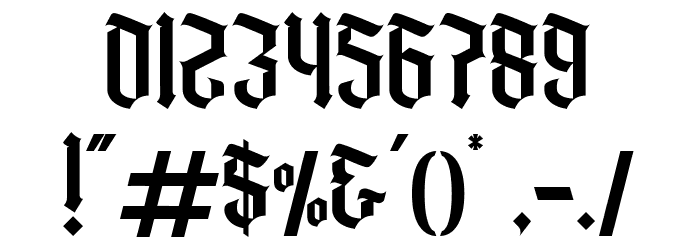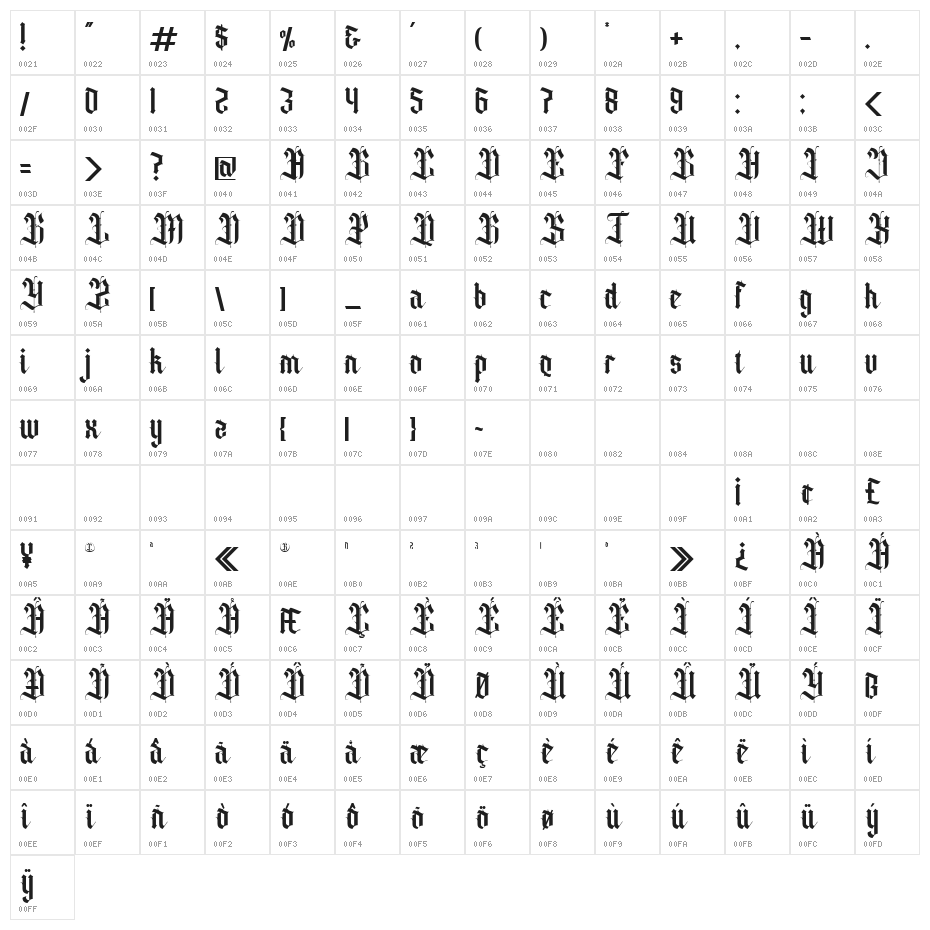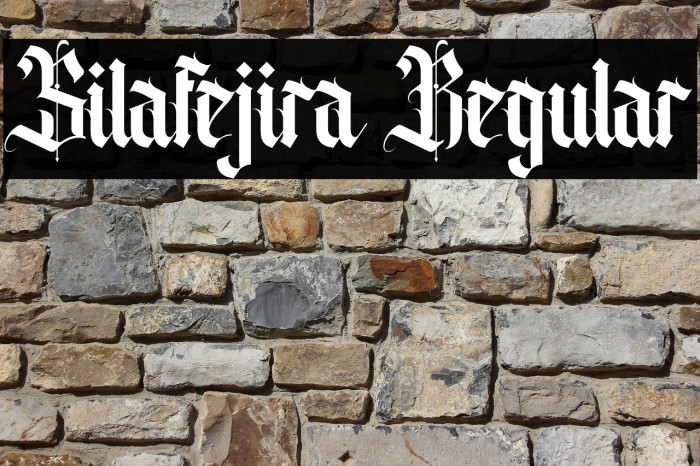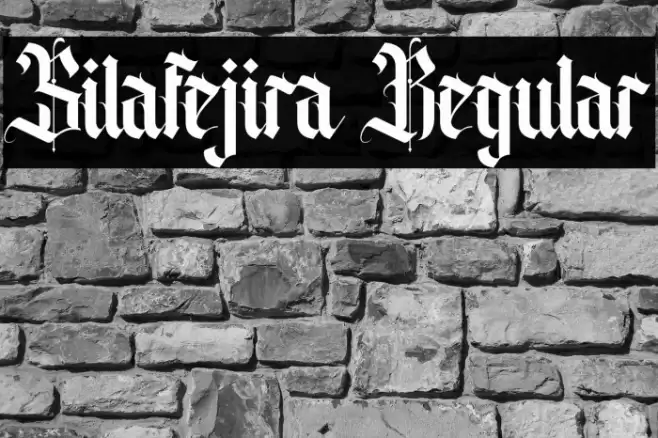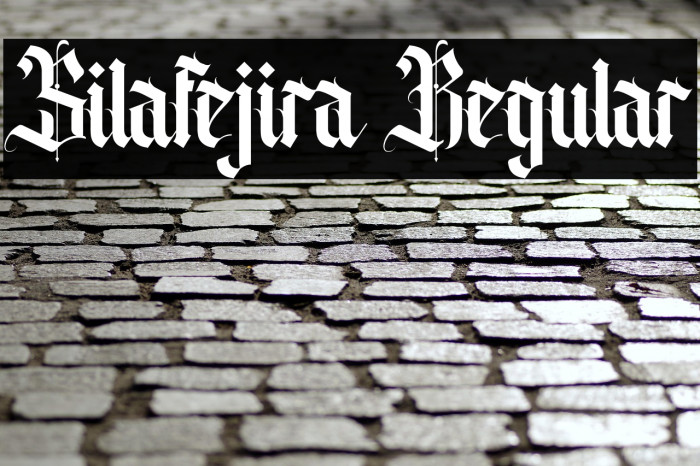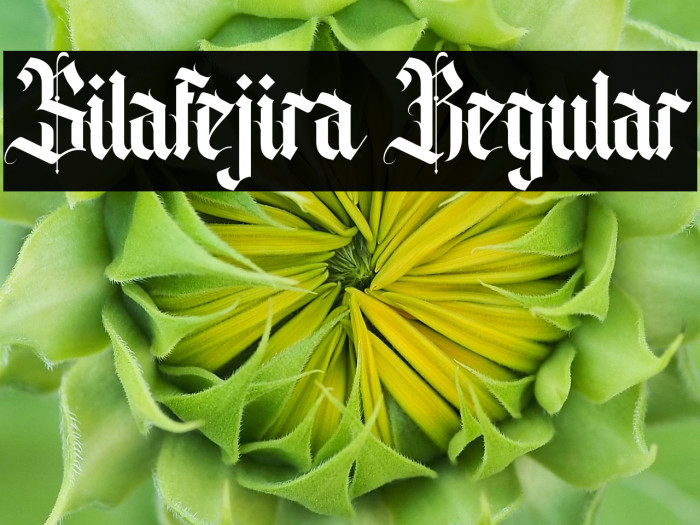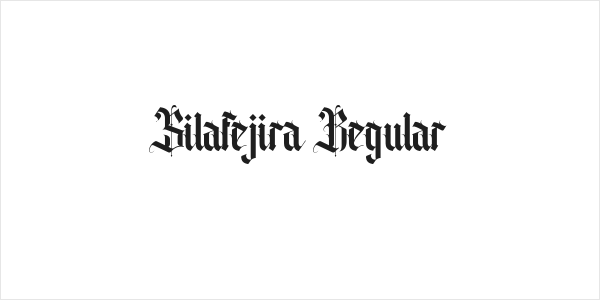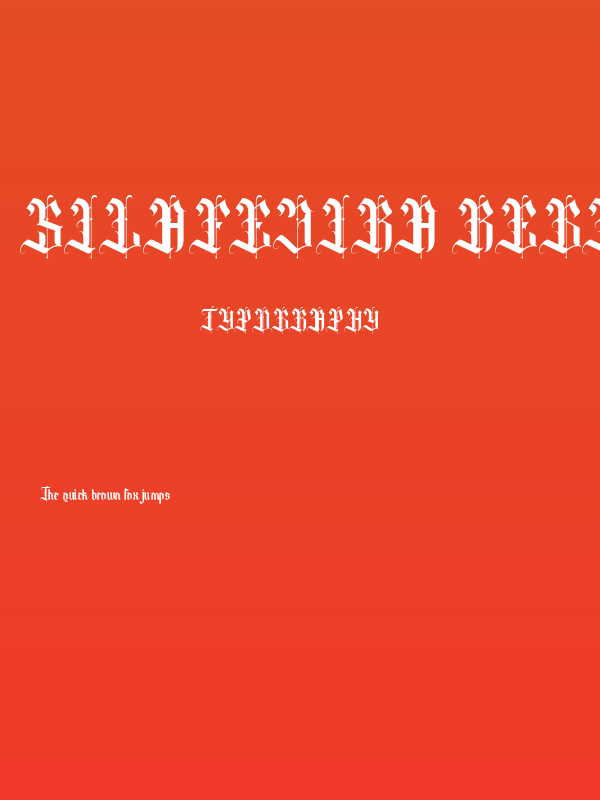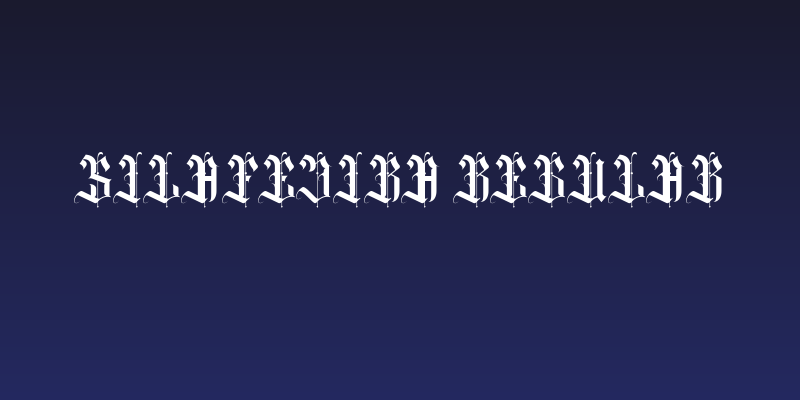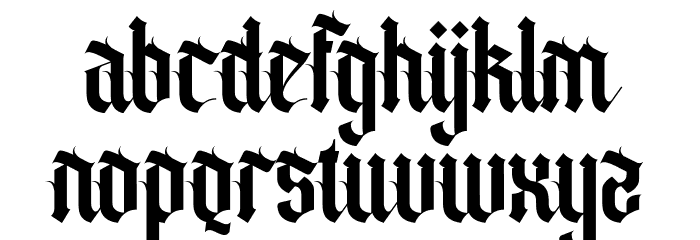
Silafejira Regular Font
Silafejira Regular Description
This font features a traditional blackletter style, characterized by its intricate and ornate design. The letters are bold and angular, with sharp edges and a strong presence. The uppercase letters are particularly elaborate, with decorative flourishes that enhance their gothic appearance. The lowercase letters maintain the same level of detail, providing a cohesive look throughout the typeface. Numbers and special characters are designed to match the overall aesthetic, ensuring consistency across all text elements. This font is perfect for projects that require a historical or medieval touch, offering a dramatic and eye-catching option for various design needs.
| Overall Style | Vintage |
| Use Case | Logos, Headlines, Decorative text |
| Proposed Projects | Ideal for historical documents, gothic-themed designs, book covers, posters, and branding that requires a vintage or medieval touch. |